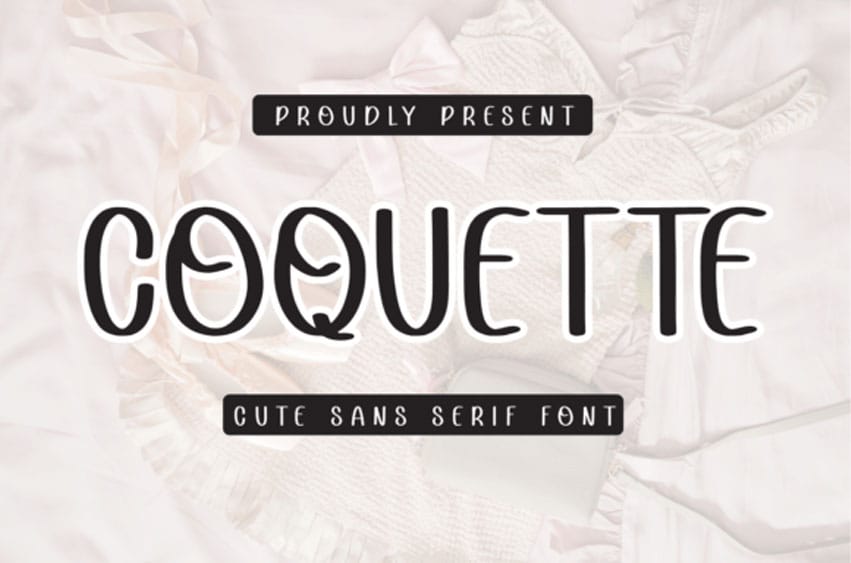
Coquette Font is a cute and minimalist sans serif font.
This font is perfect for greeting cards, wedding invitations, gift labels, mugs, t-shirts, quotes, labels, etc. Use it to create spectacular and interesting designs!